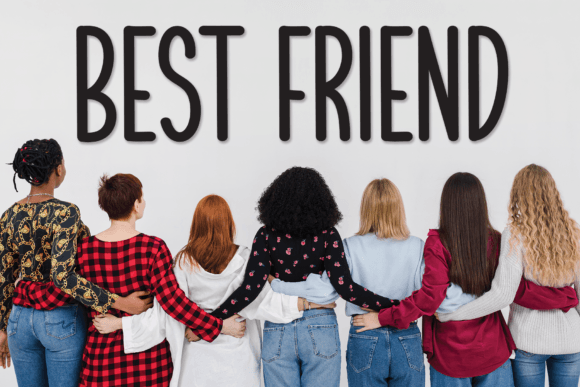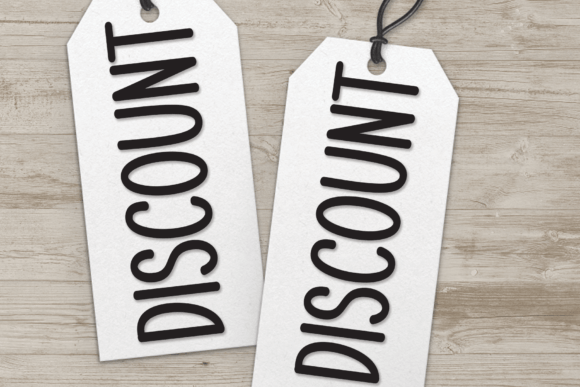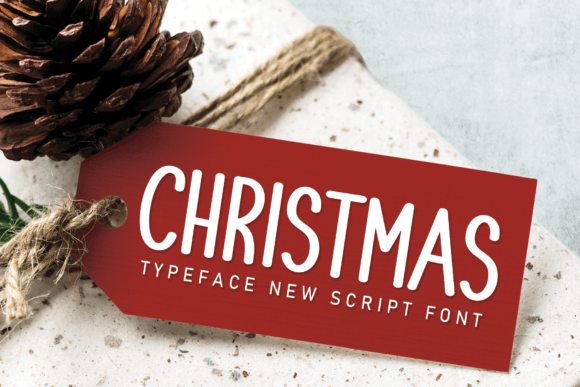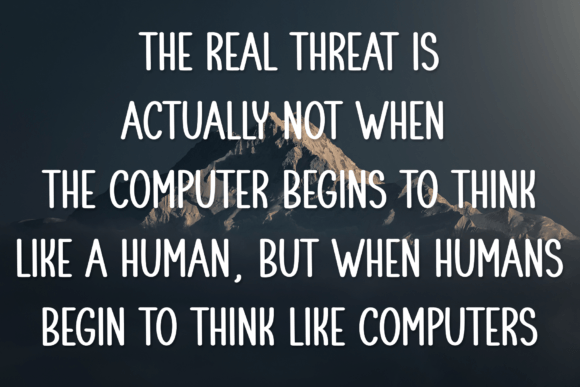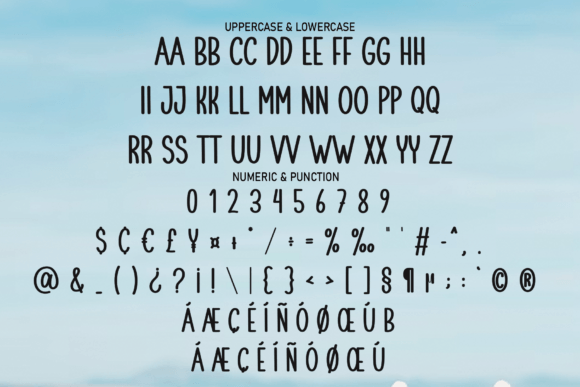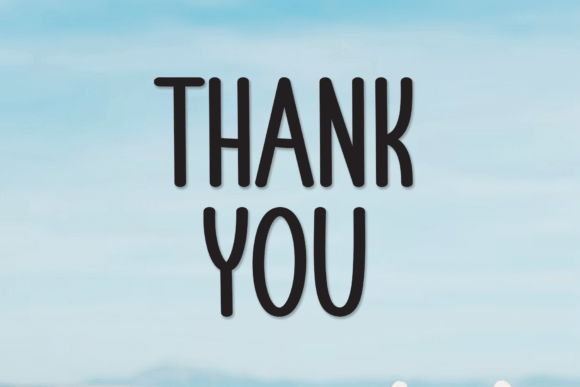
Enter the Hello June Font, a beautiful and elegant handwritten font that’s sure to capture your heart. With its incredibly distinct and timeless style, this font is perfect for designers who want to add a touch of sophistication to their projects. Whether you’re working on a wedding invitation, a birthday card, or a branding campaign, Hello June Font is the perfect choice.
As a designer, you know how valuable it is to have a reliable and versatile font at your disposal. Hello June Font is just that – a trusted companion that will help you create spectacular designs that will leave a lasting impression on your audience.
Hello June Font Key Features
- Font Family: Hello June is a sans-serif font family with a modern and elegant design.
- Unique Characteristics: Hello June features a unique, geometric design with subtle rounded edges, giving it a friendly and approachable feel.
Hello June Font Review
I recently had the chance to work with the Hello June font, and I must say it’s been a mixed bag for me. Let’s dive into what works well and what doesn’t.
- The font’s elegant and modern aesthetic is perfect for creating a professional and sophisticated look. It’s ideal for branding, editorial content, and advertising materials.
- The font’s versatility allows it to be used in a variety of contexts, from titles and headings to body text.
- The font’s readability is excellent, making it easy to read even at smaller font sizes.
- The font may not be suitable for use in digital applications, as it can appear blurry or pixelated at certain sizes.
- The font’s condensed forms can make it difficult to read in certain contexts, such as in narrow columns or on small screens.
Overall, I think the Hello June font is a great choice for print materials, but may require some careful consideration for digital applications. With its elegant aesthetic and excellent readability, it’s definitely worth considering for your next design project.
Tips: Use the “Hello June Font” for titles and headings to add a touch of elegance to your designs.
Tips: Use the “Hello June Font” for custom typography projects, such as wedding invitations or business cards.
Tips: Use the “Hello June Font” for titles, headings, and body text to add a touch of elegance to your presentations and documents.
The “Hello June Font” is ideal for:
- Custom typography projects
- Designing elegant titles and headings
Alternatives to Hello June Font
Ostrich Sans is a modern sans-serif font that offers a similar friendly and approachable feel to Hello June Font. It is ideal for use in digital products, logos, and branding materials. Ostrich Sans has a more geometric and streamlined look compared to Hello June Font, which gives it a slightly more contemporary feel.
Montserrat is a popular sans-serif font that is often used in digital design. It has a strong, urban feel that is similar to Hello June Font, but with a more industrial and edgy tone. Montserrat is a good choice for use in headlines, titles, and other prominent text elements.
Arimo is a clean and minimalist sans-serif font that is similar to Hello June Font in its friendly and approachable feel. It is ideal for use in digital products, apps, and websites where a clear and easy-to-read font is needed. Arimo has a more subtle and understated look compared to Hello June Font, making it a good choice for use in body text.
Lato is a modern sans-serif font that offers a similar friendly and approachable feel to Hello June Font. It is ideal for use in digital products, logos, and branding materials. Lato has a more rounded and soft look compared to Hello June Font, giving it a slightly more feminine and approachable feel.